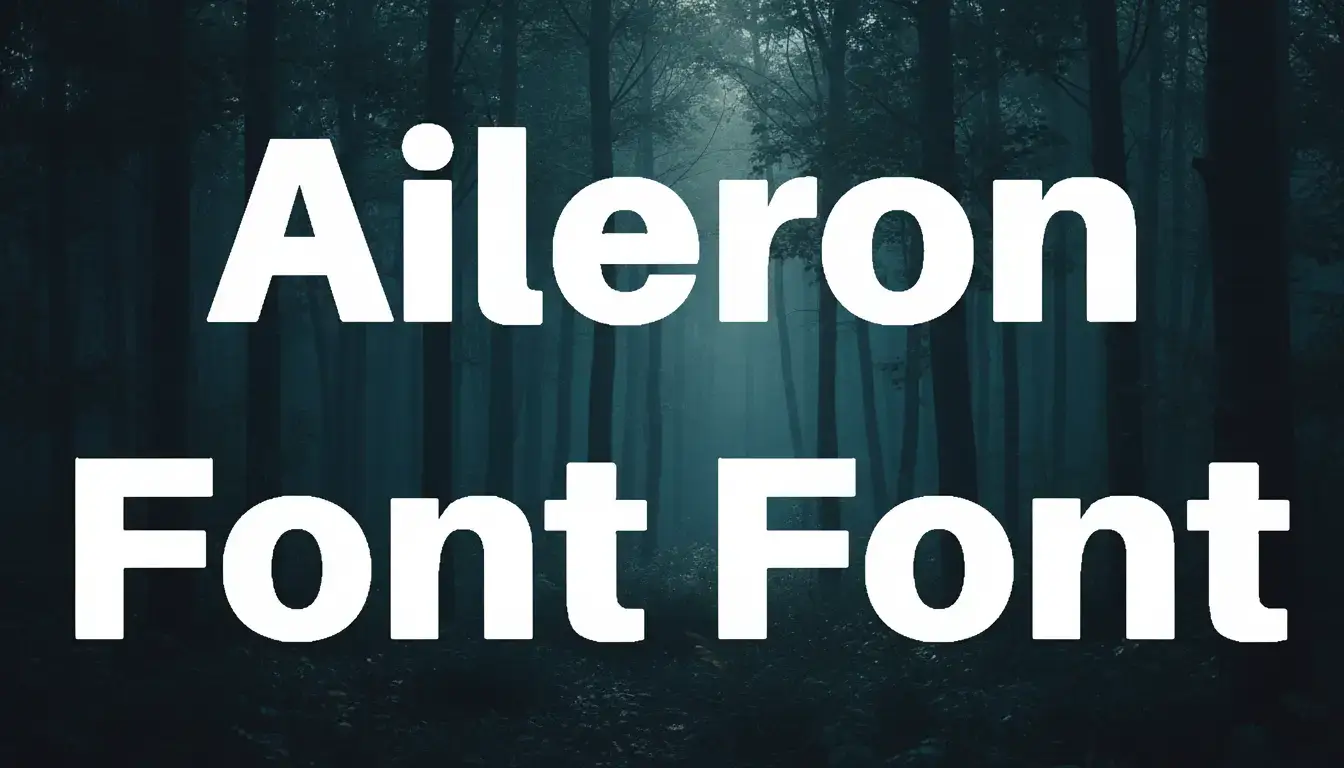
Aileron Font
Sora Sagano designed Aileron Font, a highly versatile neo-grotesque sans-serif typeface family, and released it through Dot Colon in 2014. Heavy inspiration from classic masterworks like Helvetica and Univers informs its design, which incorporates a slightly wider, more open architecture to drastically maximize legibility on digital screens.
Aileron Font Preview
Aileron covers the full alphabet in upper and lowercase, plus all ten numbers, so you can set names, dates and prices without switching fonts. Common punctuation such as &, !, ? and @ is included as well. It also has the accented letters you need for Spanish, French, German, Portuguese and Italian.
Where Aileron Works Best
Designers usually reach for fonts like Aileron when they're making rodeo posters, saloon signs and country music flyers. Try it in brown, rust or cream on a paper texture for the full old-west look. Because the family has more than one style, you can mix them in a single design for headings, subheadings and highlights.